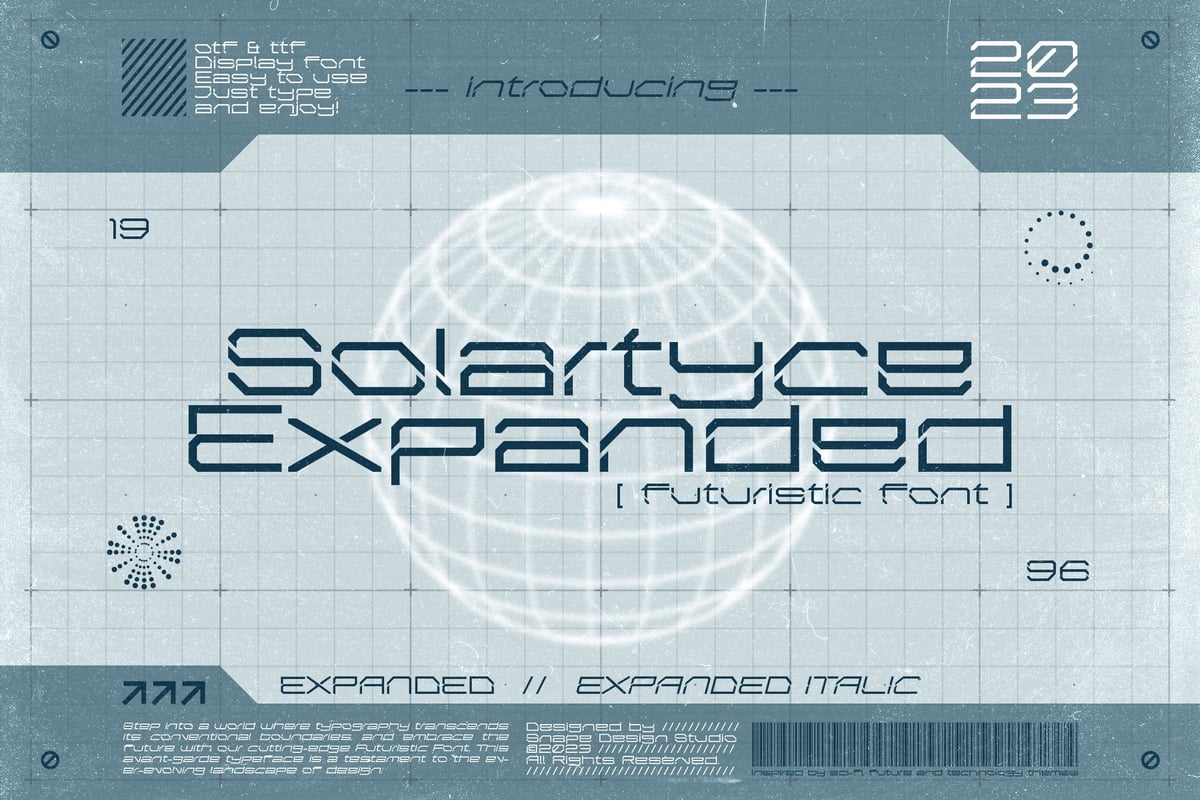
Solartyce Expanded - Futuristic Font
Transform your designs with cutting-edge typography that seamlessly blends technology and artistry for the future. This innovative futuristic font collection redefines modern design with sleek, dynamic, and visually striking characters. The expanded letterforms create bold visual impact while maintaining excellent readability across all applications. Perfect for sci-fi themes, tech branding, gaming interfaces, movie titles, or any project demanding a contemporary edge. The versatile character se...